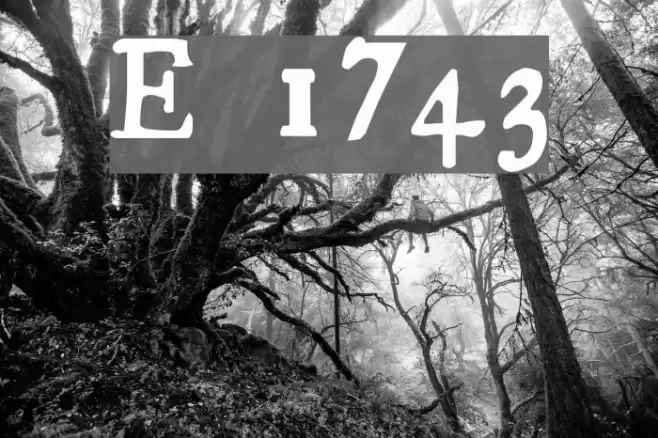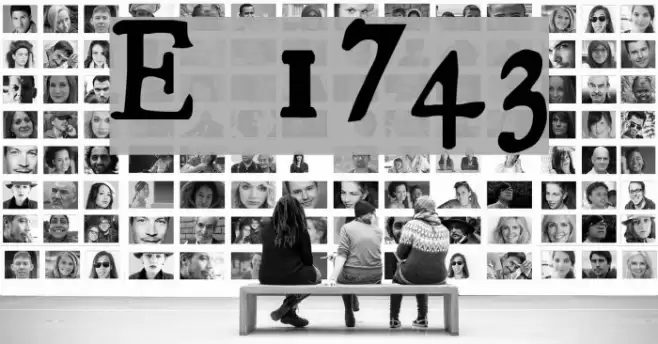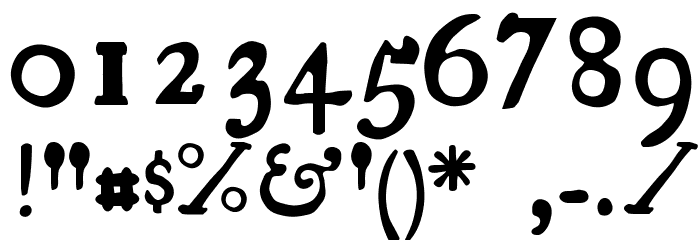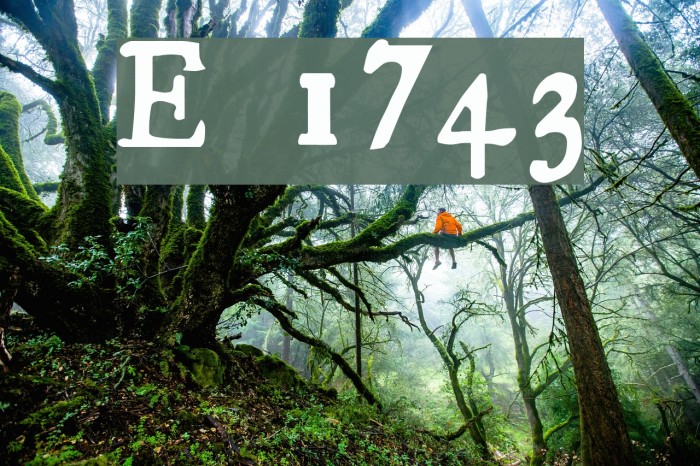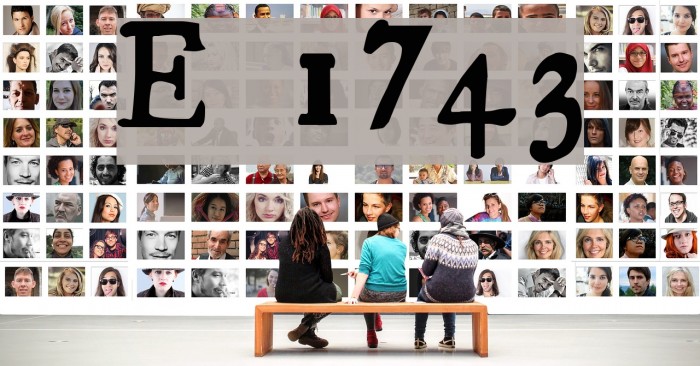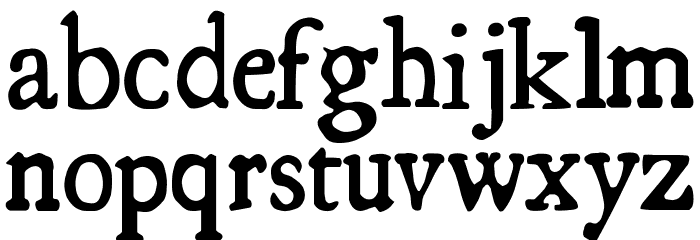
Essays 1743
This font exhibits a classic serif style with a touch of elegance and sophistication. The characters are well-defined with distinct serifs that add a traditional feel. The uppercase letters are bold and commanding, while the lowercase letters maintain a consistent flow with slight variations in stroke width. The numerals are clear and easily distinguishable, complementing the overall design. Special characters are crafted with attention to detail, ensuring readability and aesthetic appeal. The font's design is suitable for conveying a sense of history and authority, making it ideal for formal documents and classic-themed projects.
A classic serif font with elegant and sophisticated character design.
- Proposed Projects: Ideal for formal documents, historical publications, book covers, and classic-themed branding.
- Category: Serif
- Overall Style: Classic